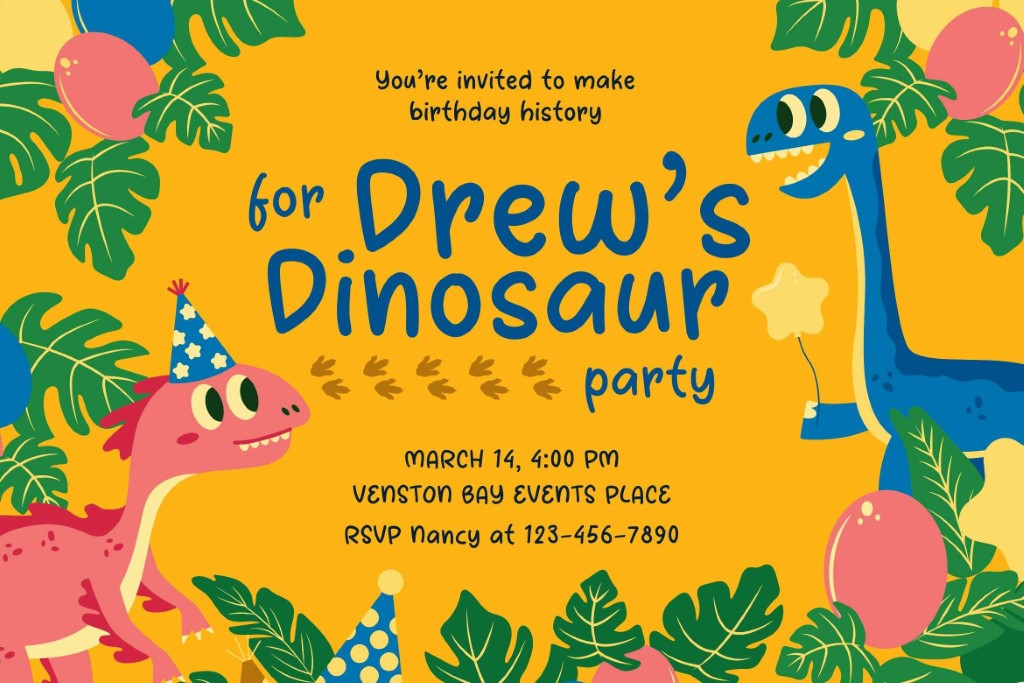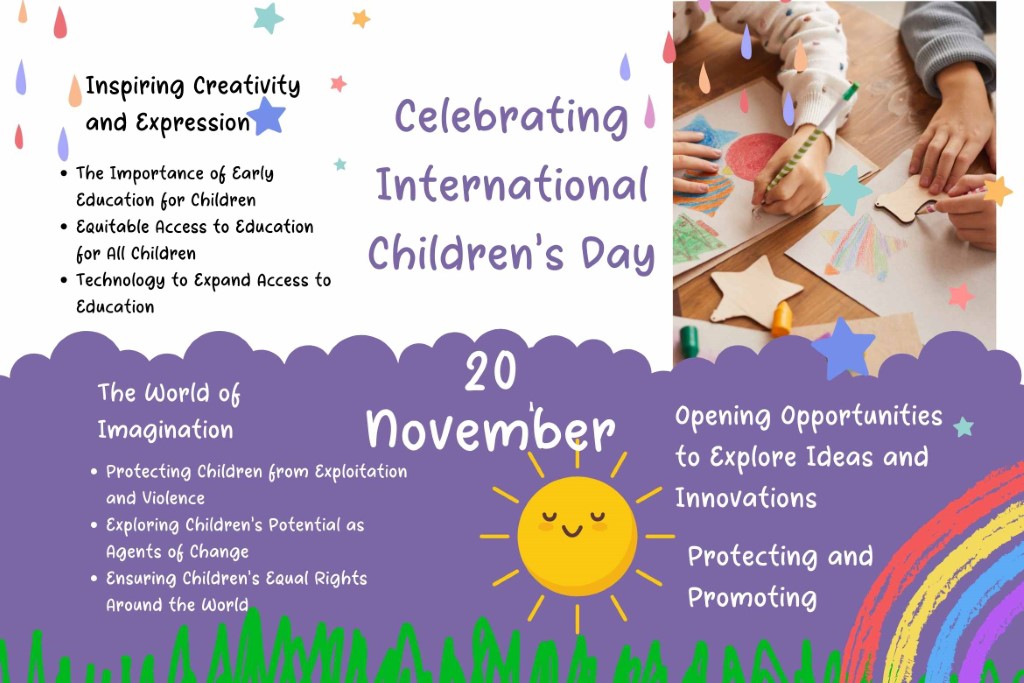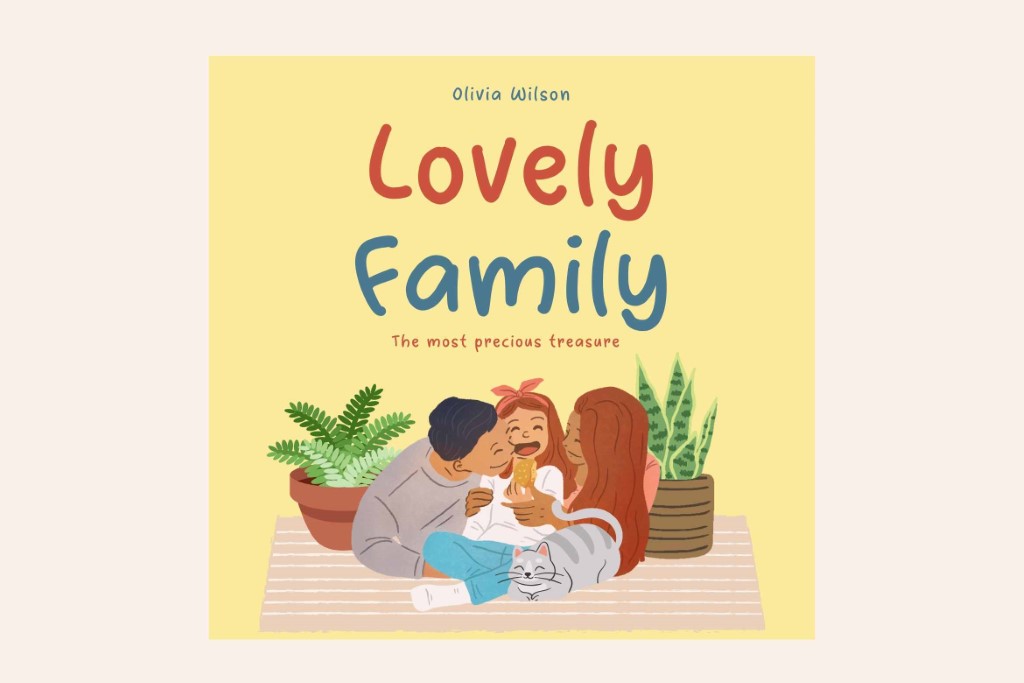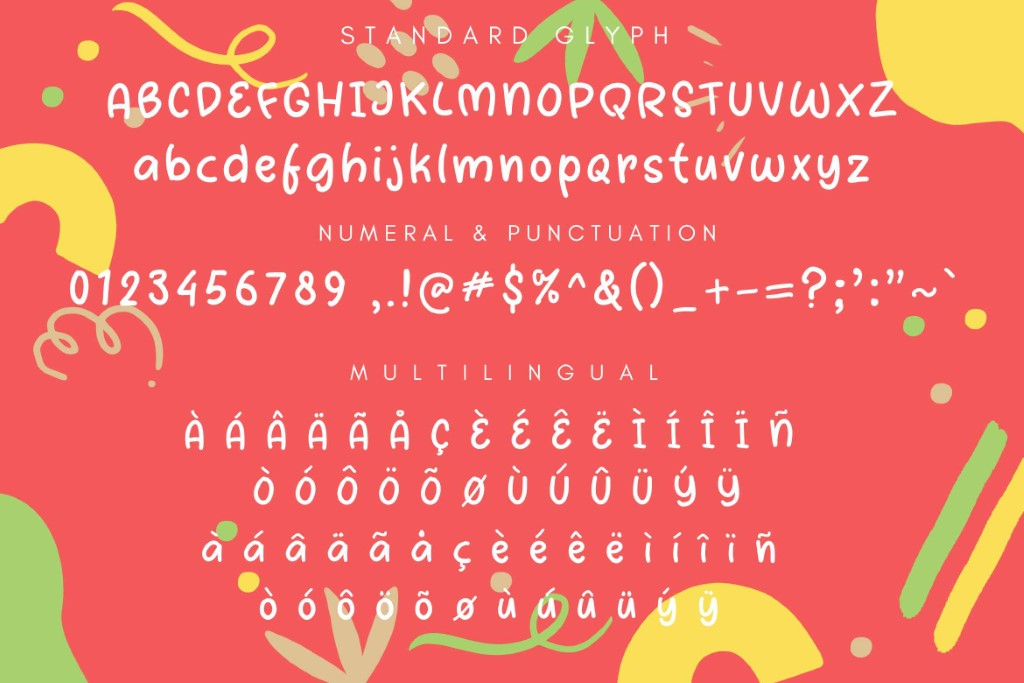
Small Dream
Smile Dream is a playful handwritten font designed to bring charm and joy to creative projects. Its rounded, cheerful strokes exude a lighthearted and approachable feel, making it an excellent choice for a variety of uses, including:
• Book Covers and Novels: Adds a whimsical touch to children’s stories or uplifting tales.
• Menus: Perfect for café, dessert, or kids' menus, conveying a fun and friendly vibe.
• Animal and Zoo-Themed Designs: Enhances animal posters, zoo branding, or educational materials for kids.
• School Projects and Student Promotions: An excellent choice for class presentations, banners, or event flyers.
• Creative Projects: Ideal for invitations, posters, and playful branding.
Smile Dream combines simplicity with creativity, making every design more inviting and delightful.